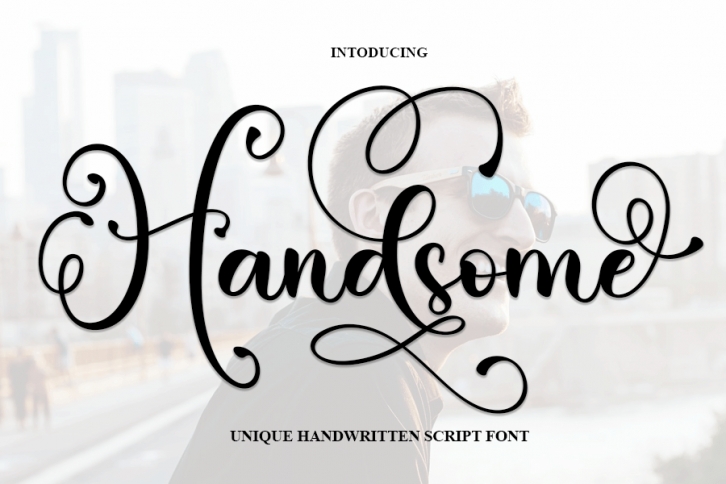
Handsome is a cool handwritten script font with a modern vibe and spotless form, inspired by classic calligraphy. Not too thin and not too thick, balanced and varied, this font was designed to enhance the beauty of your projects.